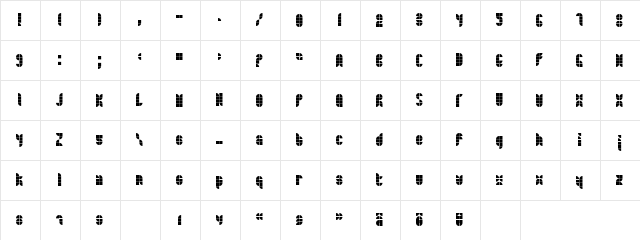
Bath Normal
Design Context for Bath Typeface
Bath is a composed and adaptable typeface that performs quietly and consistently across a wide range of design contexts.